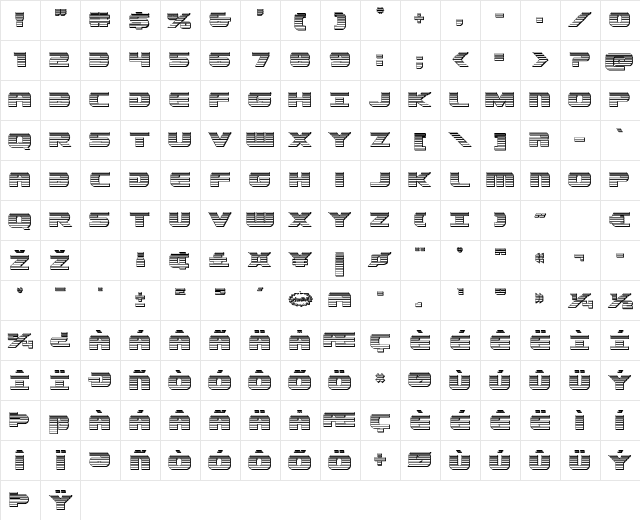
Dekaranger Platinum Regular
Dekaranger Platinum Family
Complete Dekaranger Platinum Regular glyph index. Displaying only characters natively supported by Dekaranger Platinum Regular font.
Design Context for Dekaranger Platinum
Dekaranger Platinum is a composed and adaptable typeface that performs quietly and consistently across a wide range of design contexts.